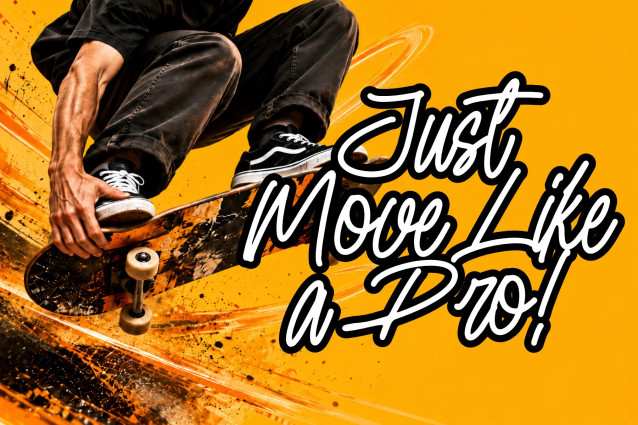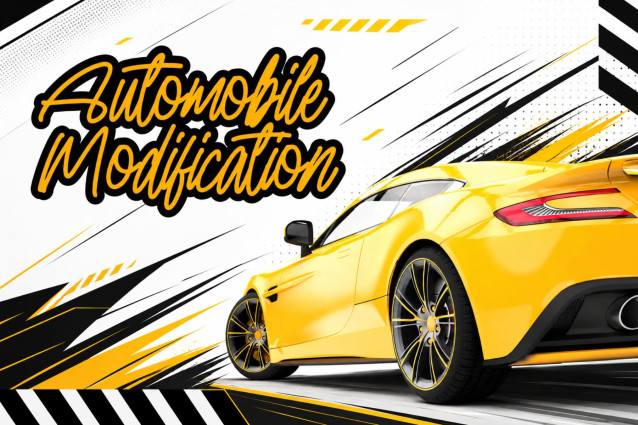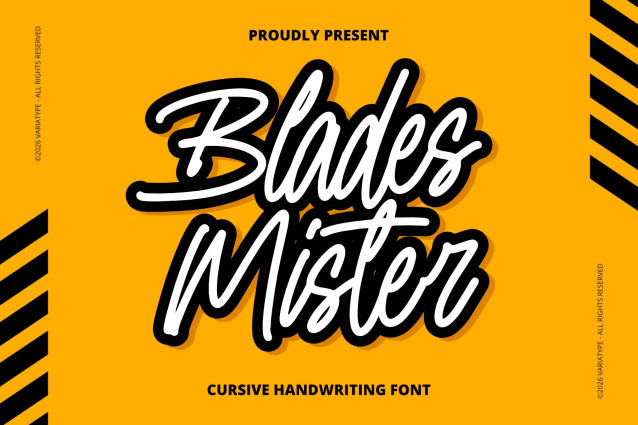
Blades Mister – Cursive Handwritten Font
Blades Mister Font is a bold cursive handwritten font with expressive monoline strokes and a confident, energetic personality. Designed for creative agencies, brands, and modern businesses, it adds a distinctive handcrafted touch to logos, advertising campaigns, packaging, apparel, posters, social media graphics, and promotional materials. Its dynamic letterforms help create memorable headlines and visual identities that feel authentic, stylish, and full of character.